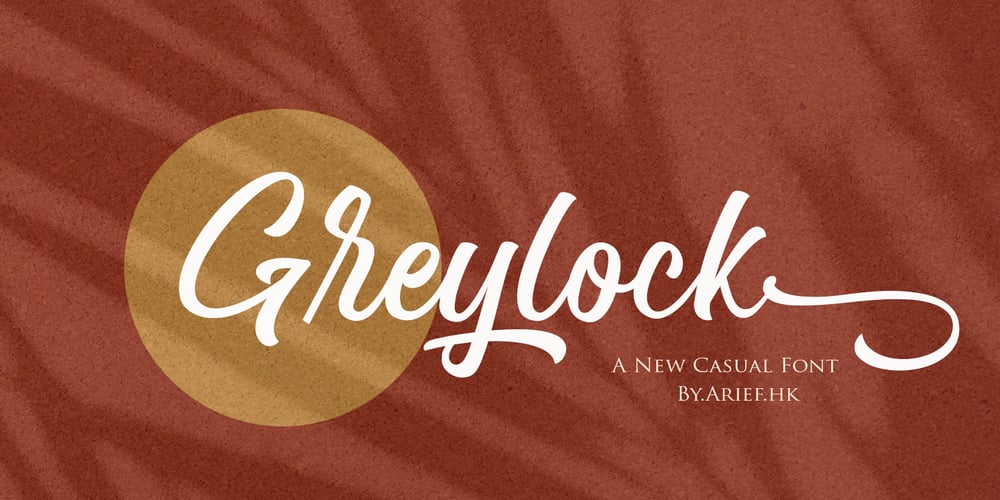
Greylock
Greylock font
Greylock Font Family was designed by Ariefr Munandar and published by dotHK Studio. Greylock contains 1 styles and family package options. Greylock is a casual script and clean brush script with a bouncing baseline. Include OpenType alternates and common ligatures. Try the alternates and ligatures to give your designs looks good, fresh, casual, stylish, and modern.Greylock is equipped with 279 glyphs. andby having many of these glyphs there will be able to choose the lettersaccording to your likes, lots of variations and options for each letter,so you can customize on your design choices.with pleasure and happiness, in this font package you will get: Greylock Regular OTF to use a variety of flying machines, you need a program that supportsOpenType features such as Adobe Photoshop Cs / Adobe Photoshop CC,Adobe Illustrator CS / Adobe Illustrator CC, Adobe Indesign and CorelDraw and many more programs that support OpenType. If you do not have a program that supports OpenType, you can accessall the alternate glyphs using Font Book (Mac) or Character Map(Windows)Thanks and happy designingThank You for purchase!Arief.hk